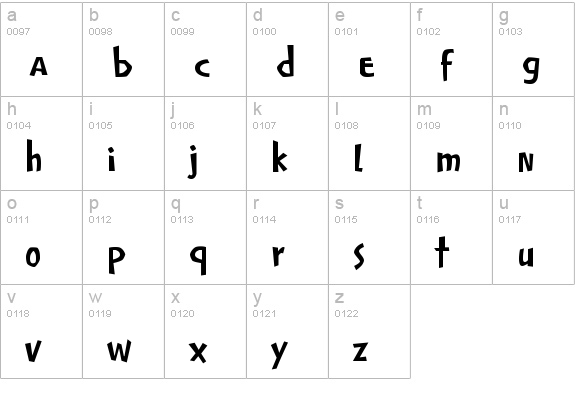
SplintHmkBold Font Details
SplintHmkBold is a bold and modern font that exudes confidence and strength. With its clean lines and sharp edges, this font is perfect for making a bold statement in any design project. Its thick strokes and bold presence make it stand out and demand attention. Whether you're designing a logo, creating a poster, or working on a branding project, SplintHmkBold will add a touch of sophistication and professionalism to your work. Its versatility allows it to be used in a variety of contexts, from headlines and titles to body text, ensuring that your message is delivered with impact. One of the best things about SplintHmkBold is that it is free. That's right, you can download this amazing font for absolutely no cost at FontsMarket.com. This means that you can enhance your designs without breaking the bank. With its high-quality and sleek design, SplintHmkBold offers a great value for any designer or creative professional. So why wait? Go ahead and download SplintHmkBold today from FontsMarket.com and take your designs to the next level. This font will not only elevate your work but also save you money. Don't miss out on this incredible opportunity to add a touch of boldness and style to your projects. Get SplintHmkBold now and let your creativity shine.